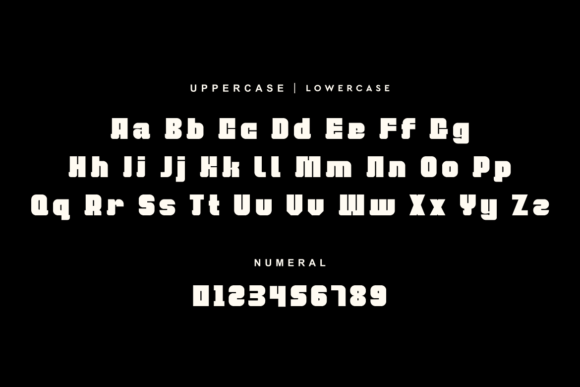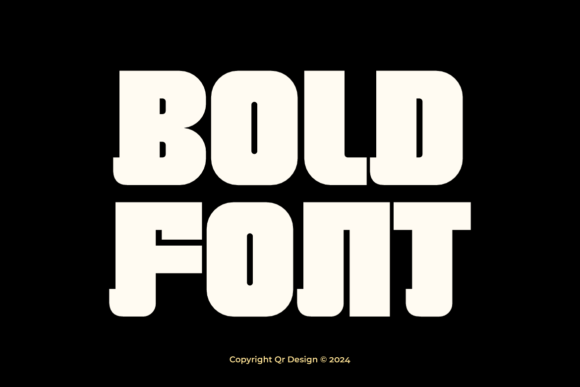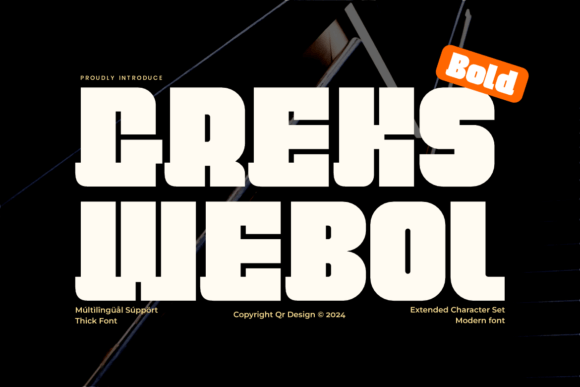
Greks Webol Font
Designer: qrdesignstd
Greks Webol Font is a bold and assertive sans serif font. No matter the topic, this font will be an incredible asset to your fonts’ library, as it has the potential to elevate any creation.